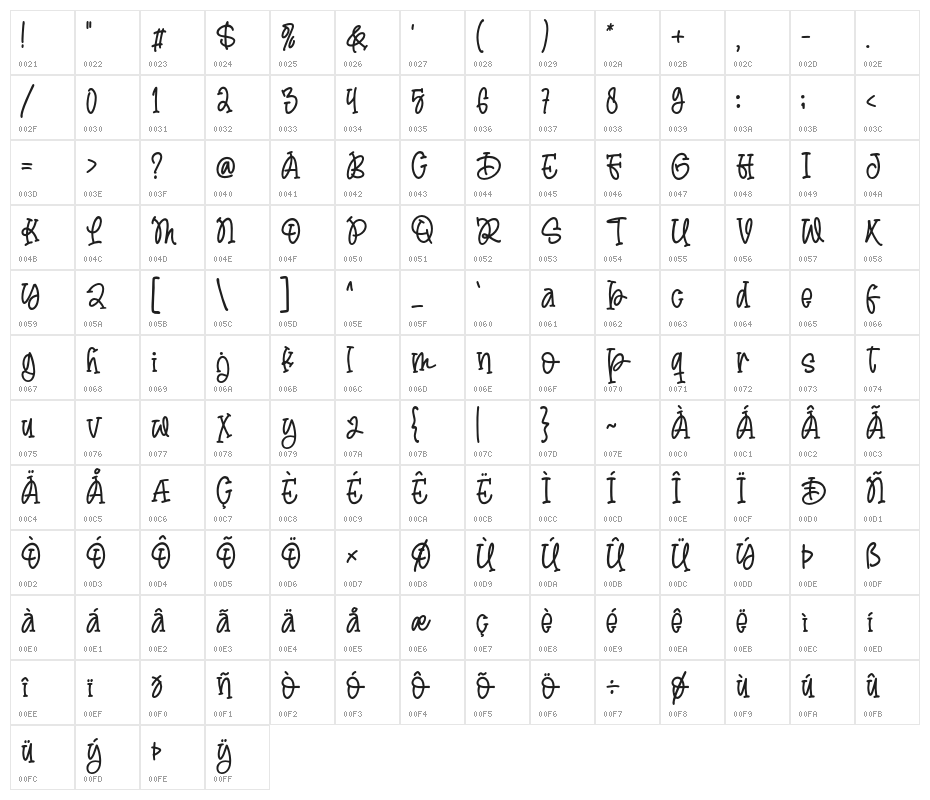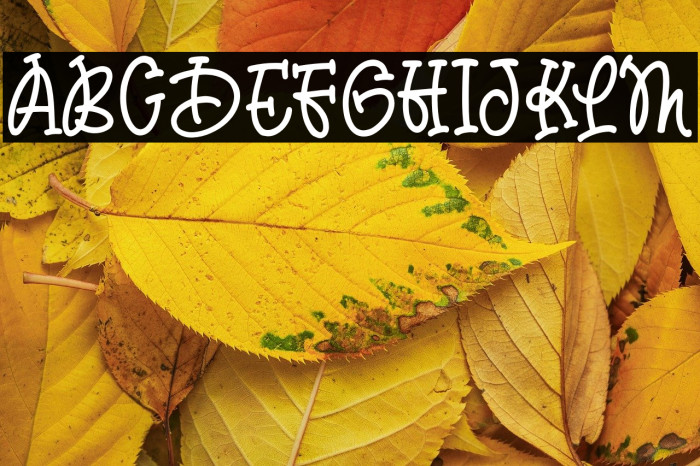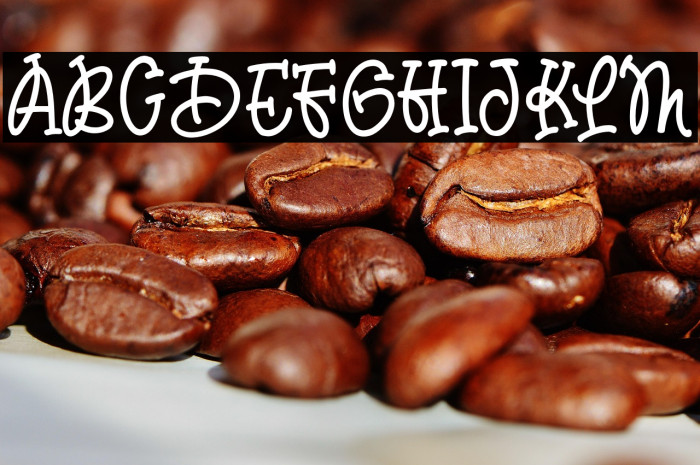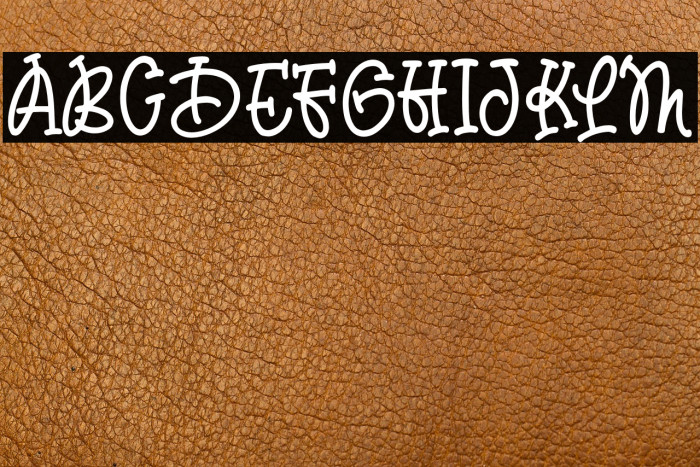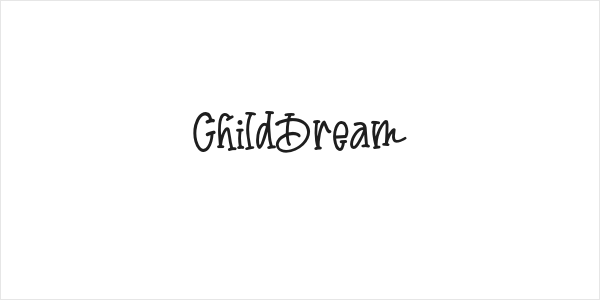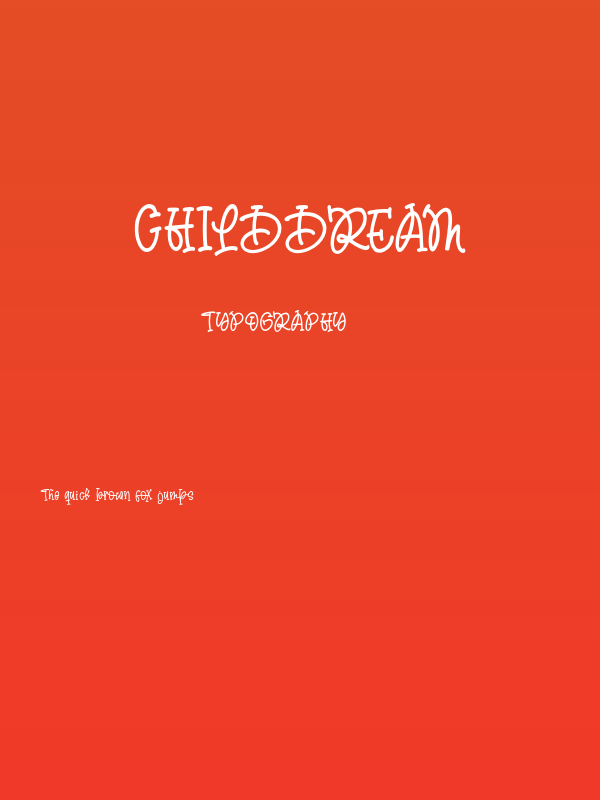
ChildDream Font
ChildDream Description
This playful and whimsical font features a handwritten style with a lively and energetic flair. The characters are bold and rounded, with a slight slant that adds a sense of movement and fun. The uppercase letters are distinct with unique loops and curves, while the lowercase letters maintain a consistent flow, enhancing readability. Numbers and special characters are crafted with the same playful spirit, making them stand out. The overall design is reminiscent of a child's handwriting, evoking a sense of innocence and creativity.
| Overall Style | Playful |
| Use Case | Headlines, Logos, Creative projects |
| Proposed Projects | Ideal for children's books, playful branding, greeting cards, and creative projects that require a touch of whimsy. |